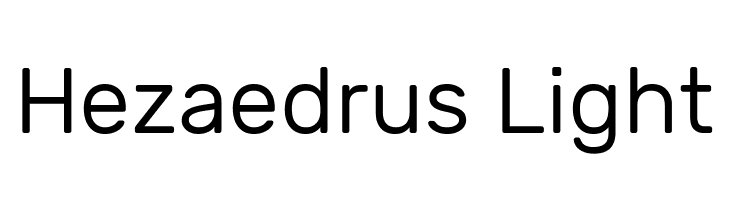
A modern, geometric sans-serif font with clean lines and uniform stroke widths.
A bold, impactful font with thick, uniform strokes ideal for headlines.
A bold, italicized font with strong, dynamic characters.
A bold, modern sans-serif typeface with strong lines and uniform width.
A bold, italicized font with a modern and dynamic style.
A clean, modern sans-serif font with an extra-light weight and minimalist design.
A sleek, extra light, italic sans-serif font with a modern and elegant style.
A modern, italic font with clean lines and a professional appearance.
A clean, modern sans-serif font with consistent stroke width and balanced spacing.